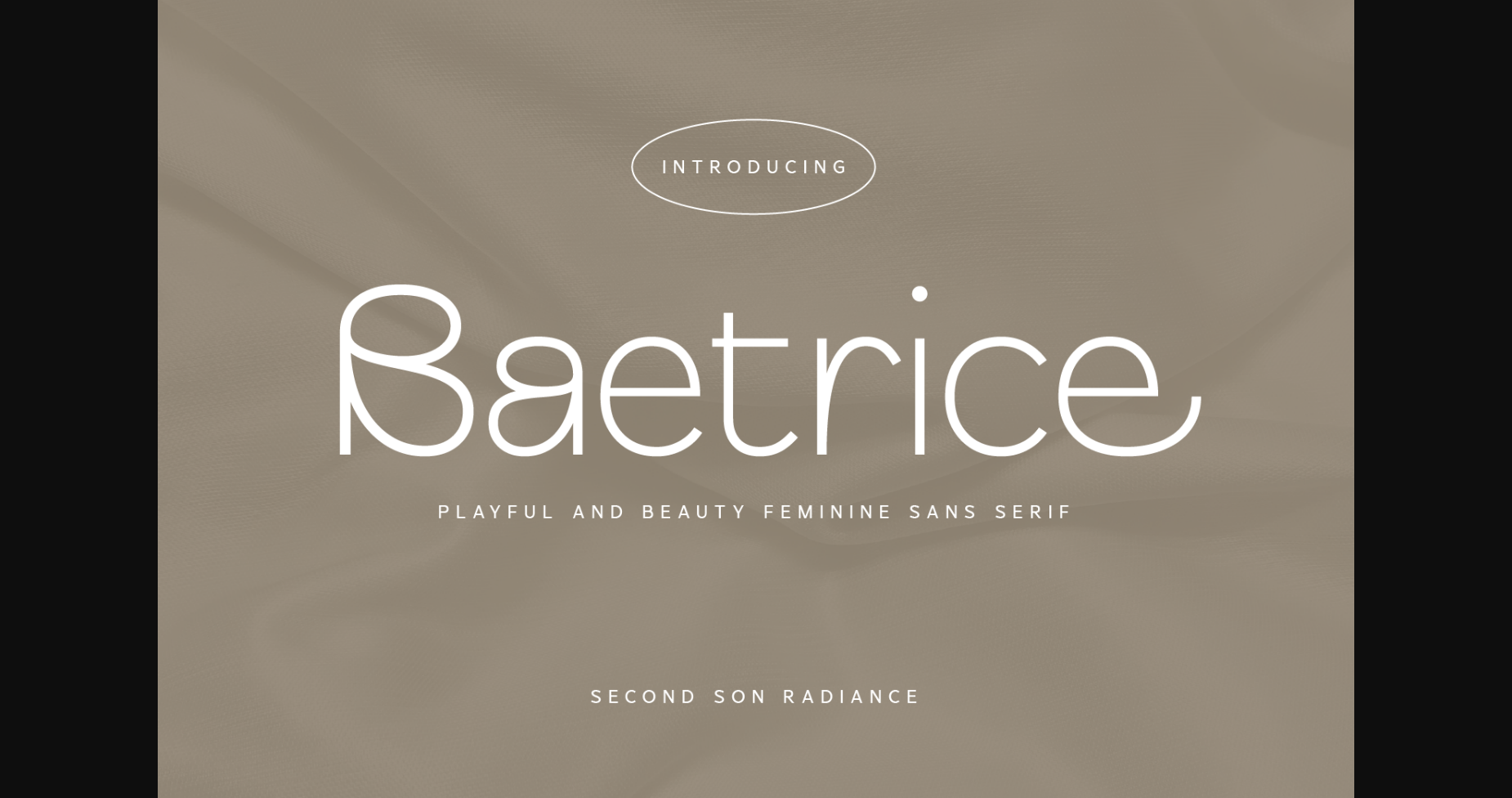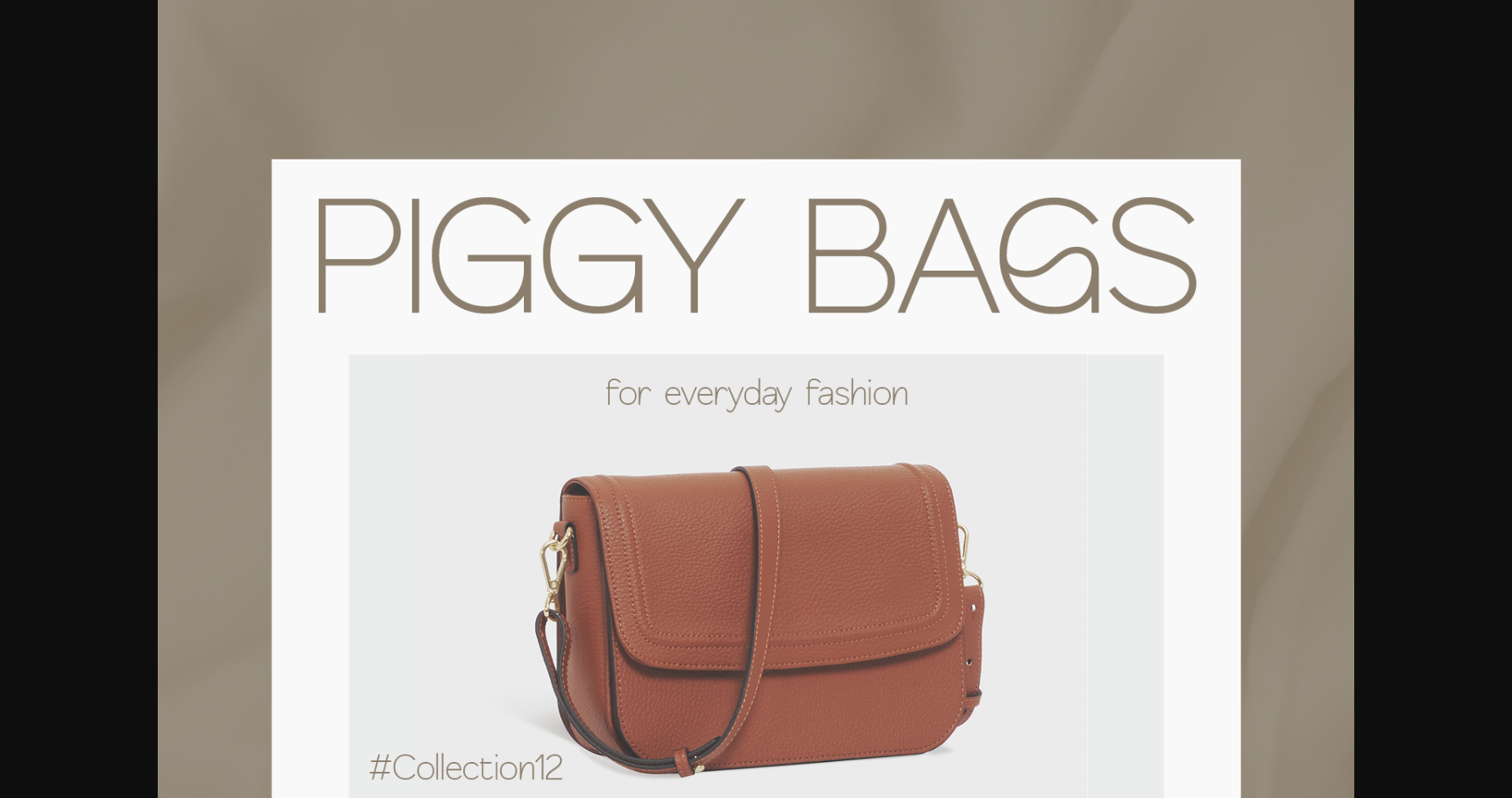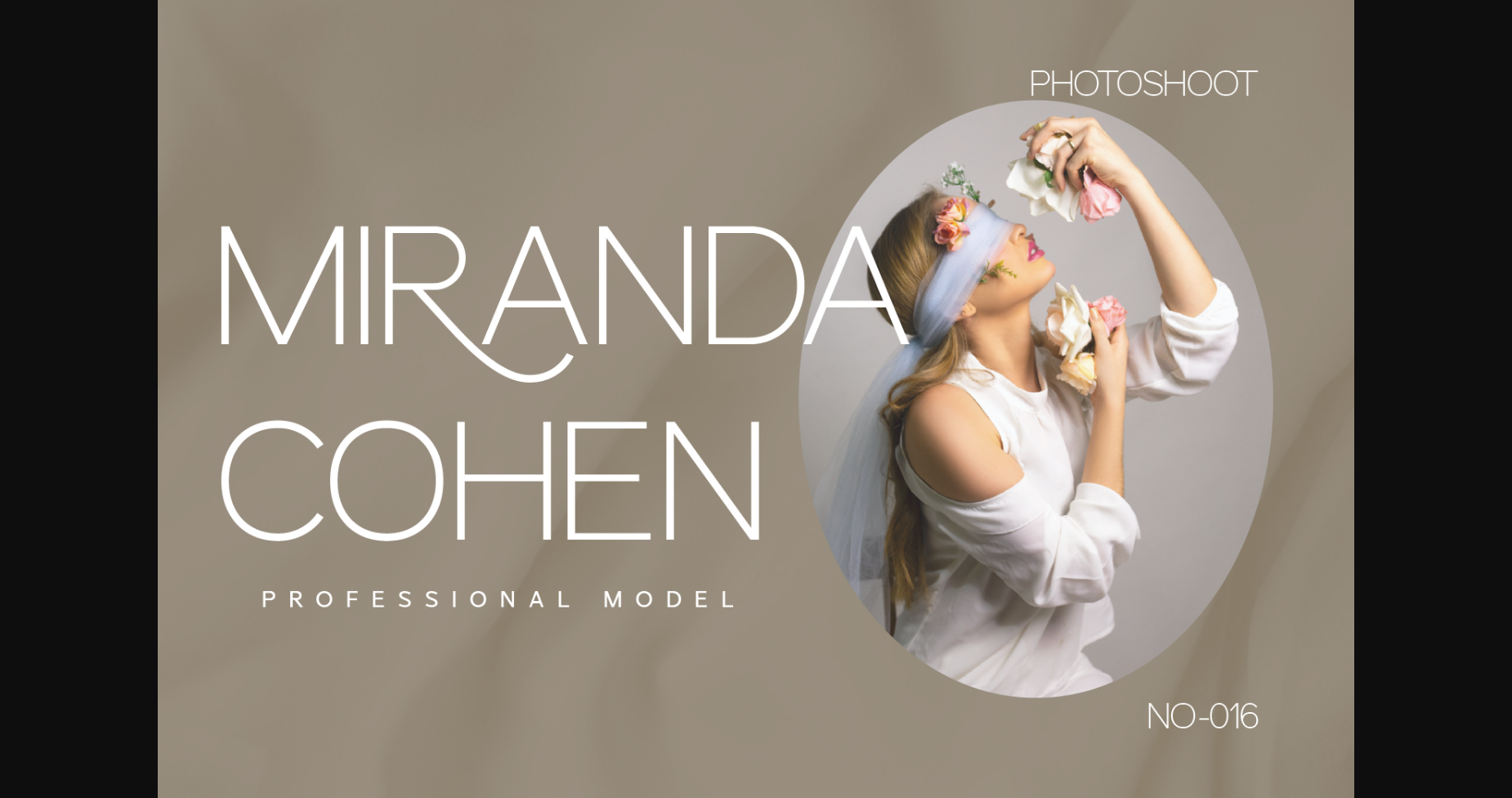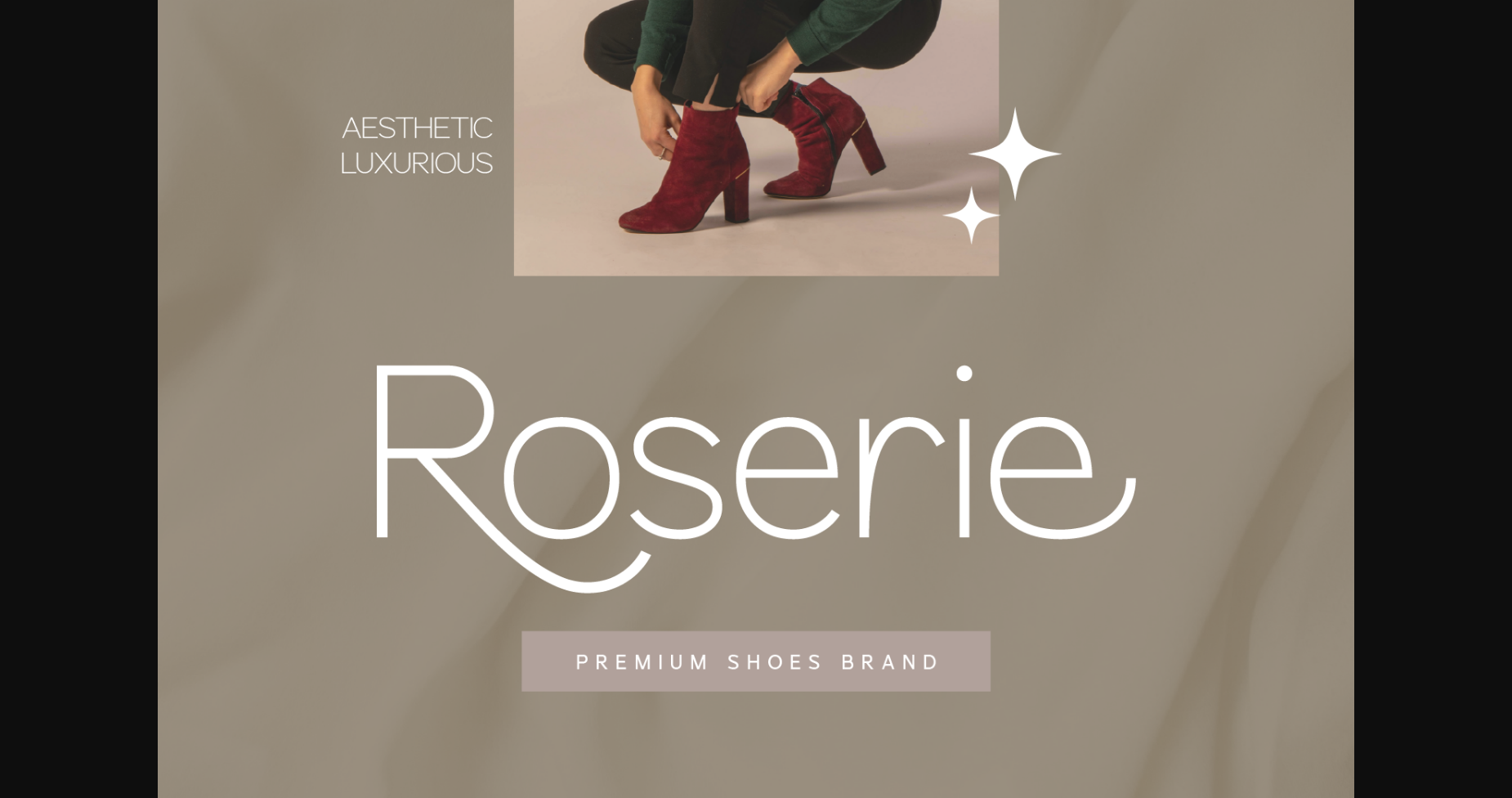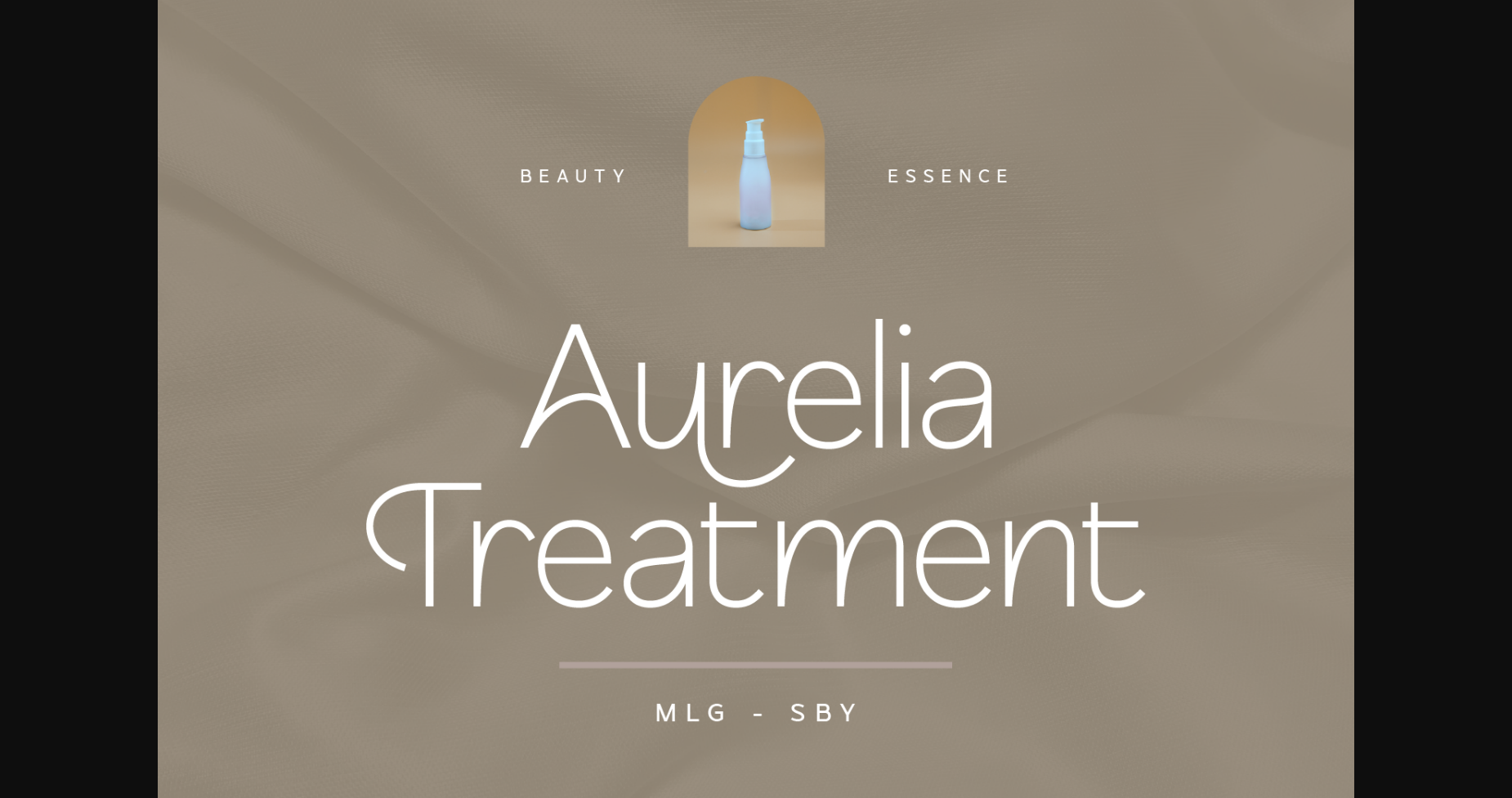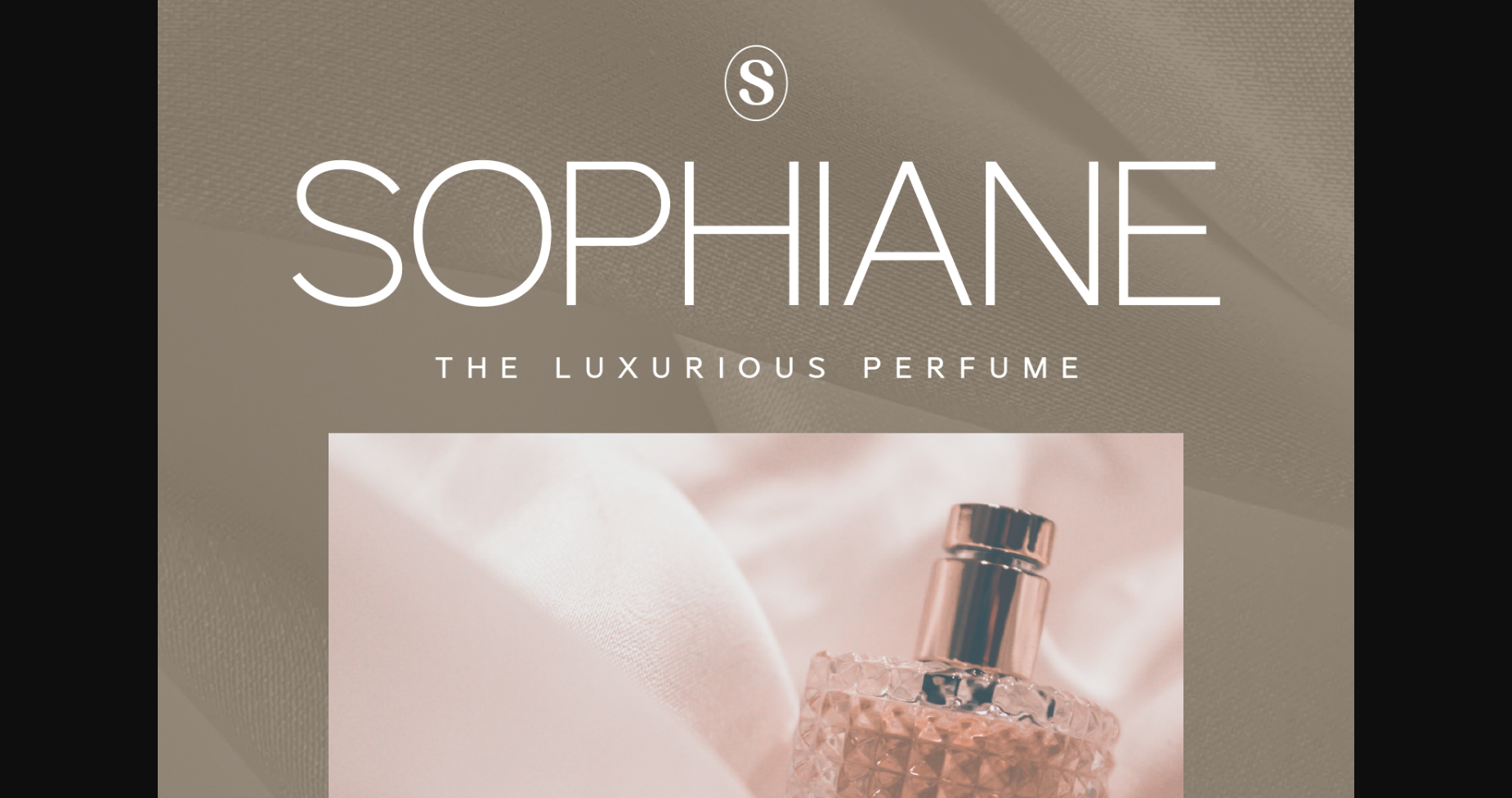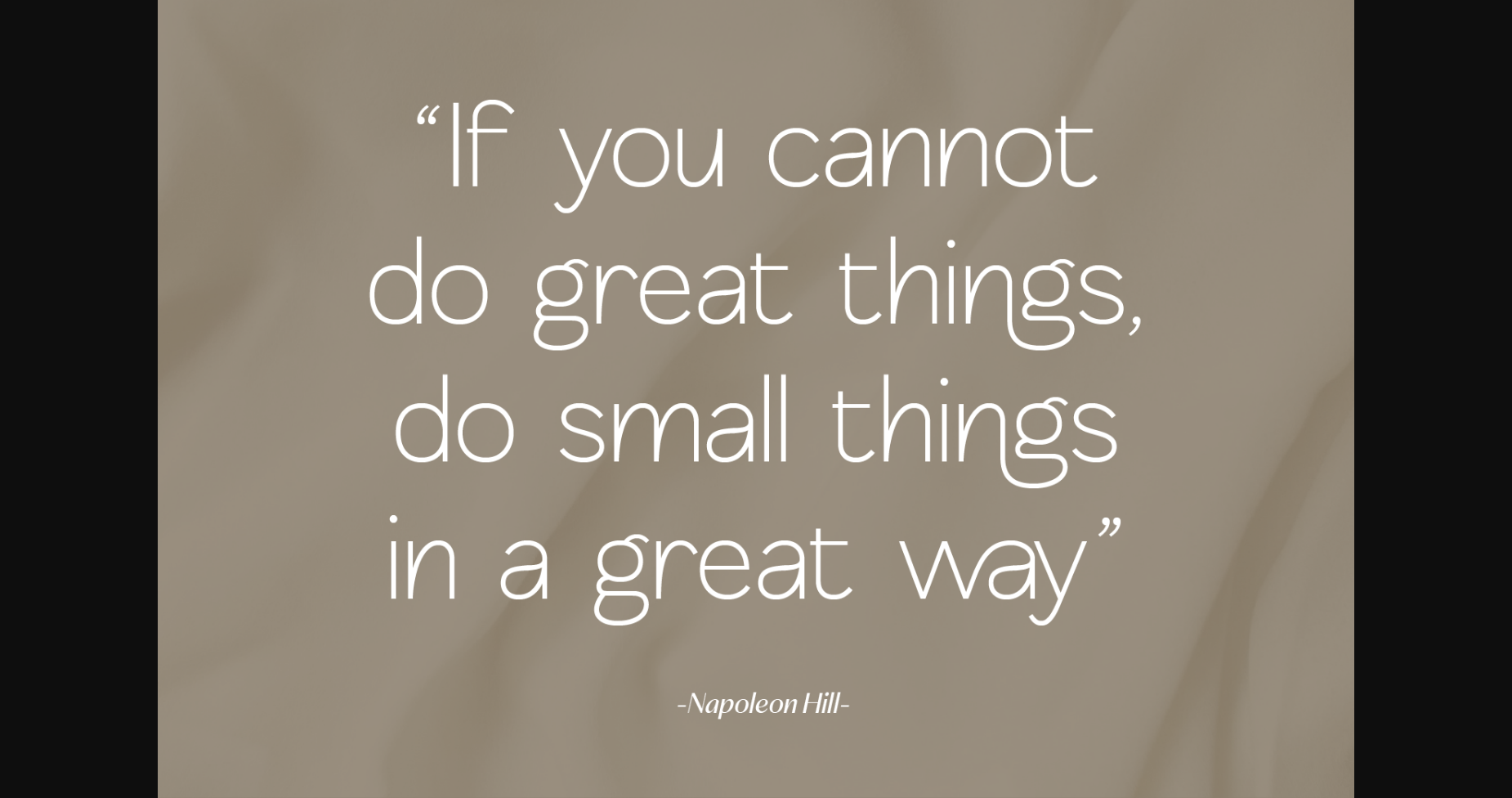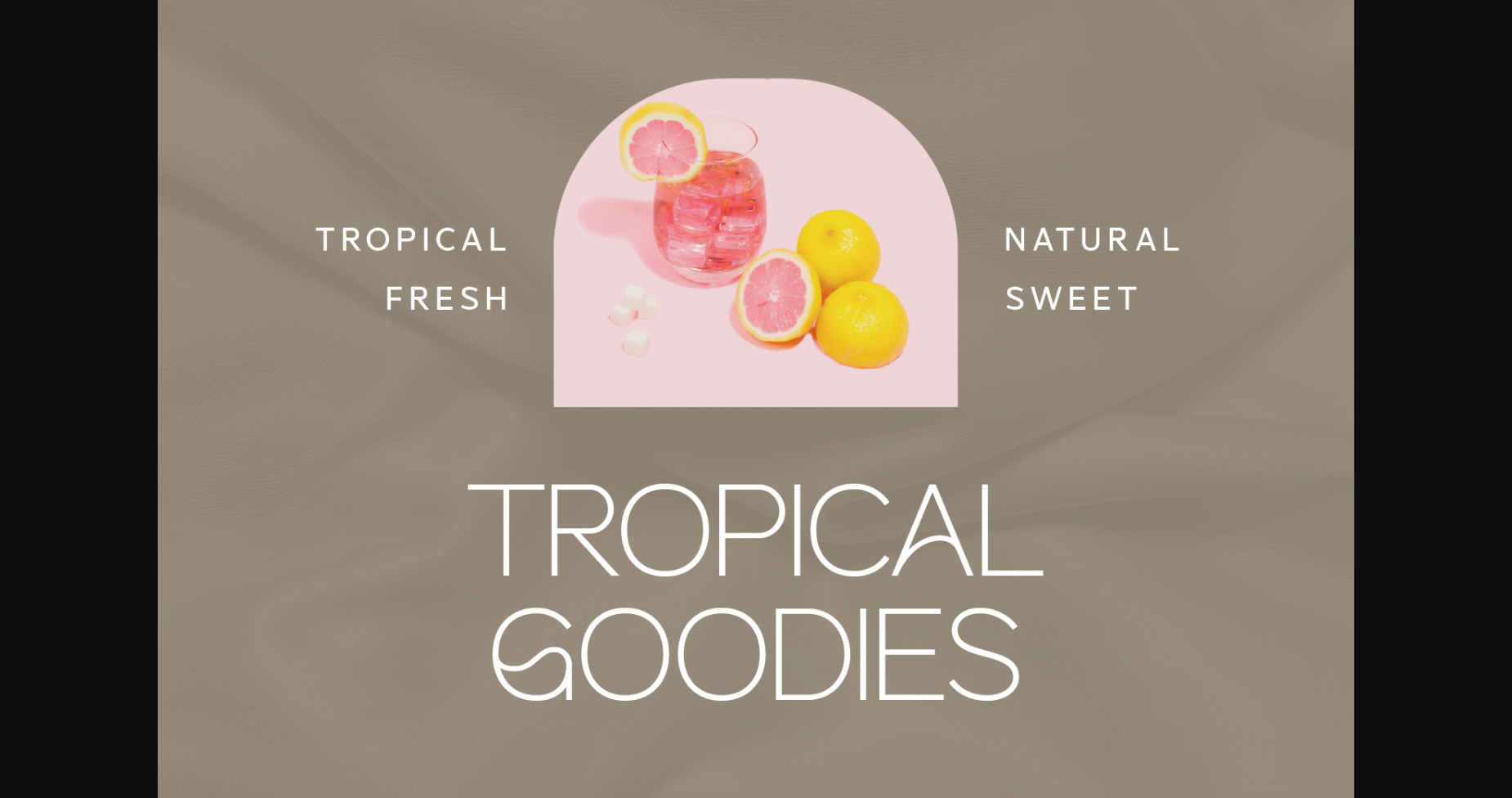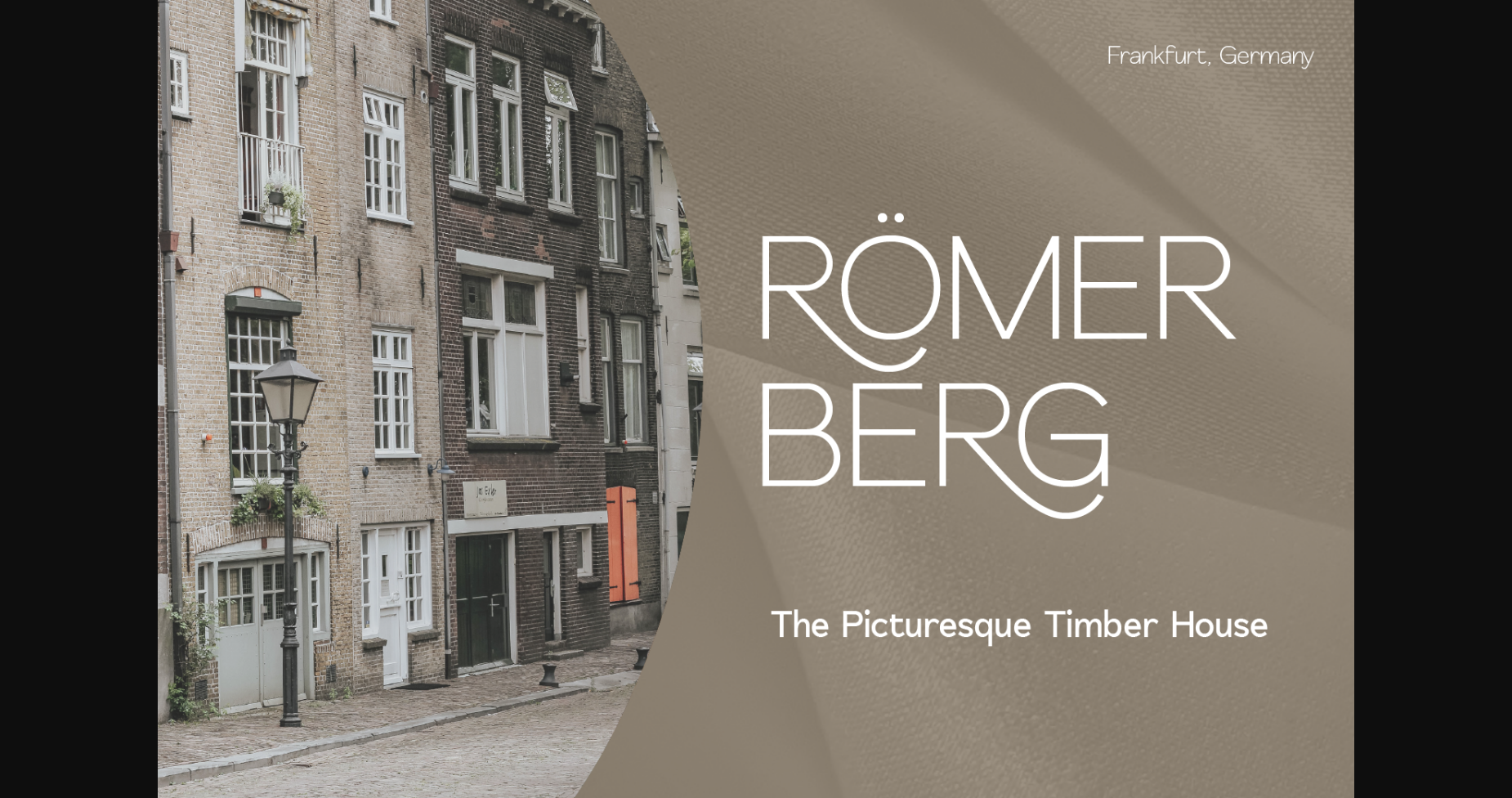
Baetrice Font
About Baetrice Font
Baetrice is a stylish and elegant sans serif font. Specially designed for luxury, elegant, feminine projects, this font is perfectly suitable for creating modern, chic designs.